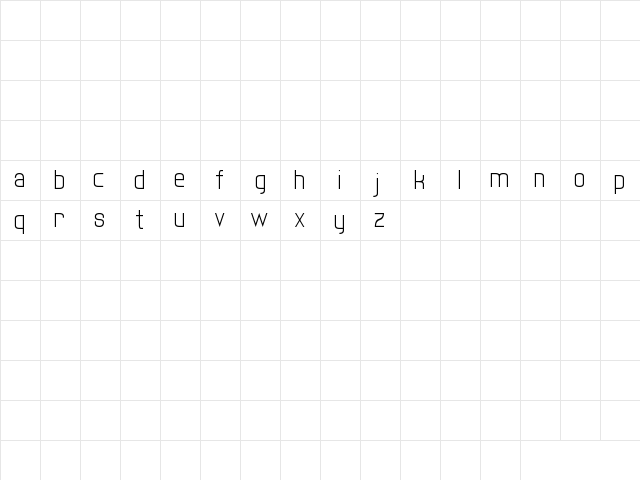
twenty-one Regular
| Designer | *dibujado* |
Design Context for twenty-one Typeface
twenty-one takes a measured approach to typography — its balanced proportions and neutral character make it a reliable workhorse for both digital and print work.